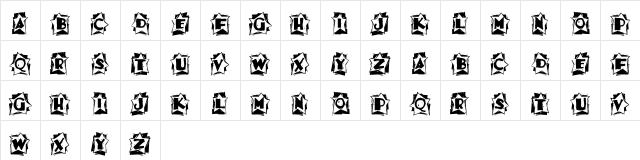
A Star is Born Regular
Design Context for A Star is Born
A Star is Born is a composed and adaptable typeface that performs quietly and consistently across a wide range of design contexts.